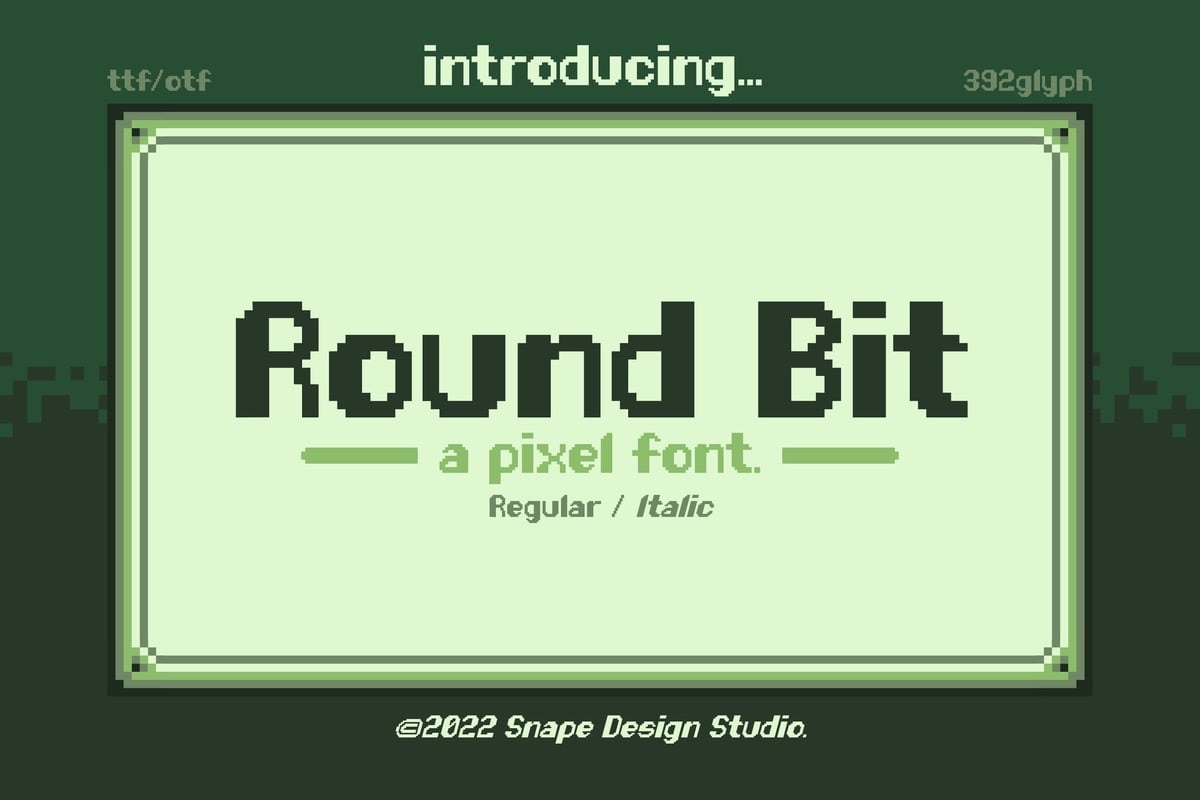
Round Bit - Pixel Font
Transform your designs with Round Bit - the ultimate retro pixel font that brings nostalgic gaming vibes to any project. This vintage-inspired pixel typeface captures the essence of classic arcade aesthetics, making it the perfect choice for retro game design themes. Whether you're creating movie titles, documentaries, film credits, logos, posters, game interfaces, book covers, headlines, or standout typography, Round Bit delivers that authentic pixelated charm that makes projects pop. Add this ...